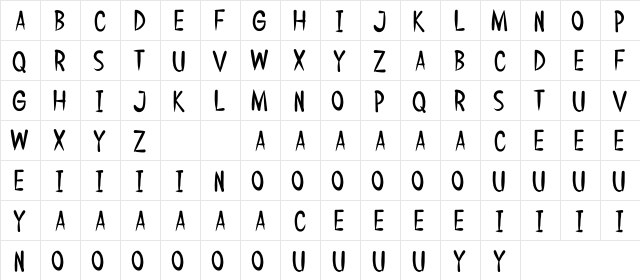
HD DOODLE Regular Font Preview
HD DOODLE Regular
Design Context for HD DOODLE Typeface
HD DOODLE is a composed and adaptable typeface that performs quietly and consistently across a wide range of design contexts.